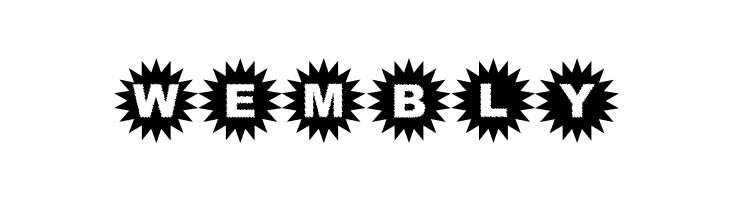
Opus Magnus Leftalic Font
- Font: Opus Magnus Leftalic
( Fonts by Dieter Schumacher )
A bold, decorative font with characters encased in starburst shapes.